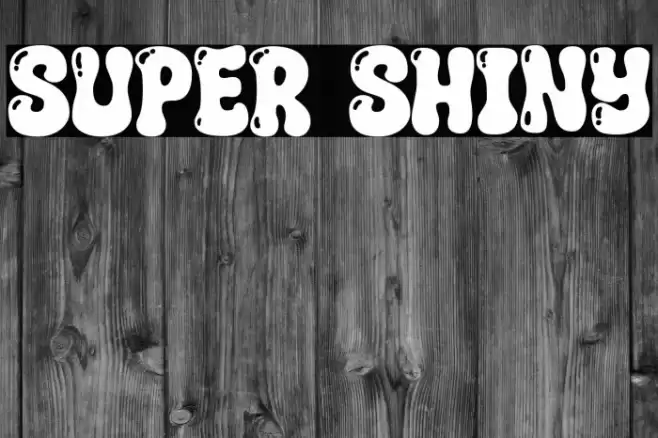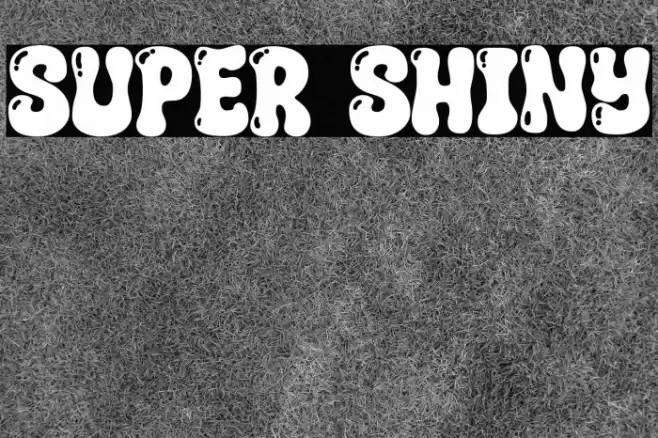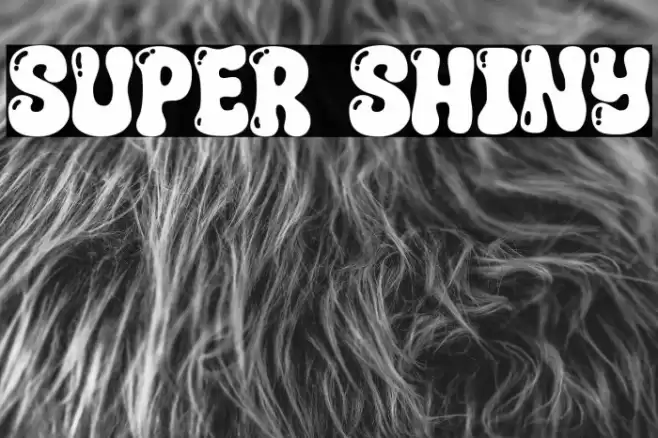
Super Shiny Font
Super Shiny Description
This playful and bold font features a unique, bubbly design with a glossy appearance, reminiscent of liquid or gel. The characters are rounded and thick, with a whimsical touch that adds a sense of fun and creativity. Each letter and number is adorned with shiny highlights, giving the impression of a wet or reflective surface. The font maintains a consistent weight throughout, ensuring readability while still capturing attention with its distinctive style. The spacing between characters is normal, allowing for clear legibility while maintaining the font's playful nature. This font is perfect for projects that require a lively and eye-catching typeface.
A bold, playful font with a glossy, bubbly design and shiny highlights from Kids fonts.
- Proposed Projects: Ideal for children's books, playful branding, party invitations, and creative posters.